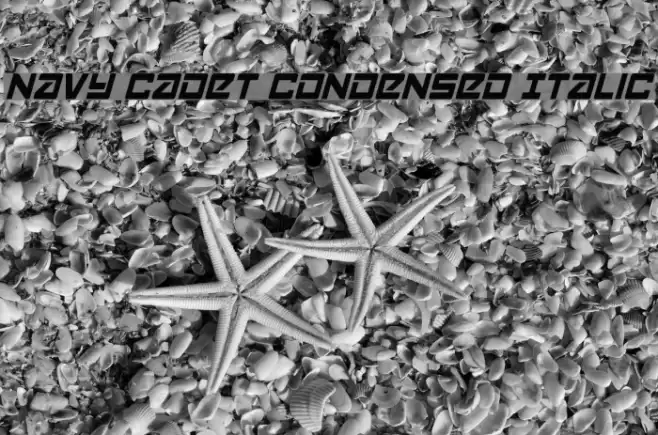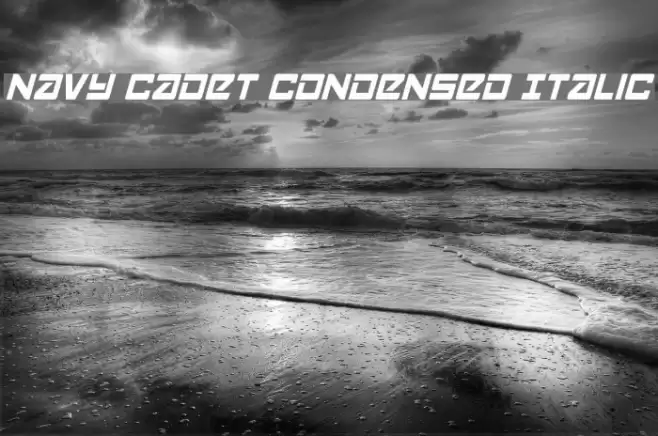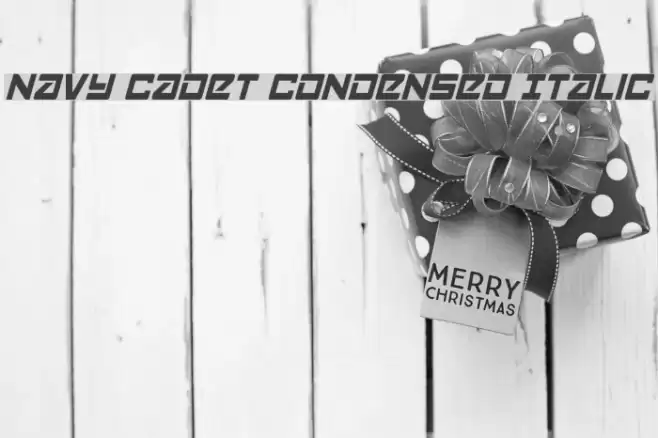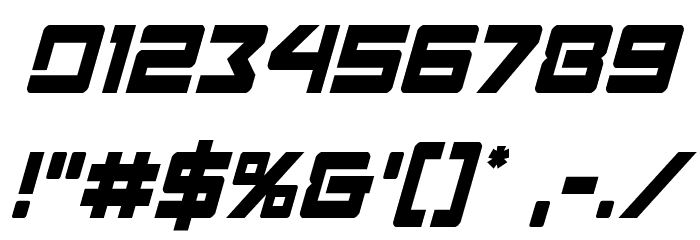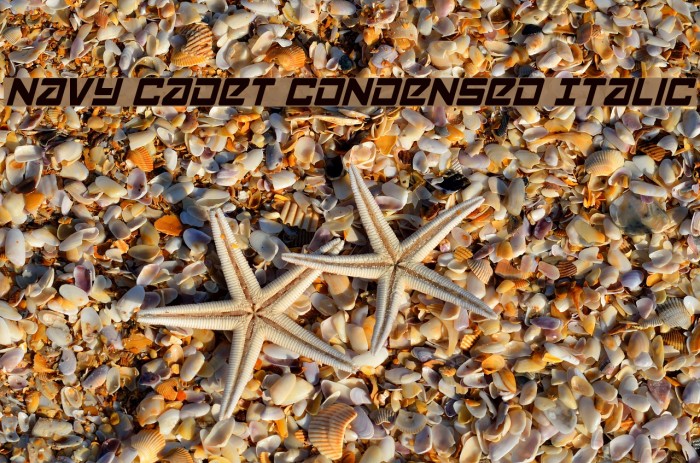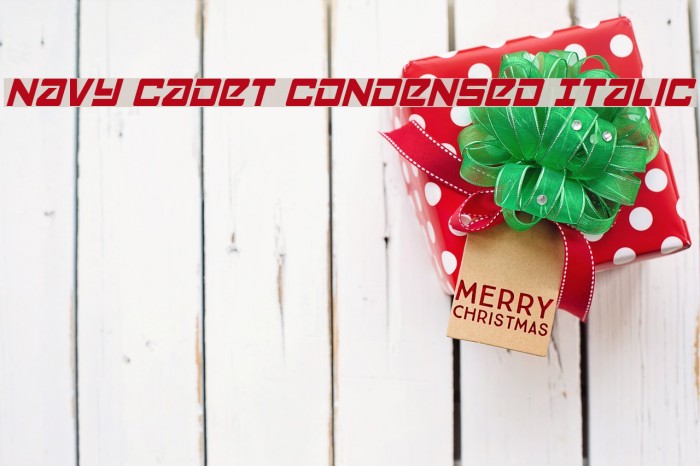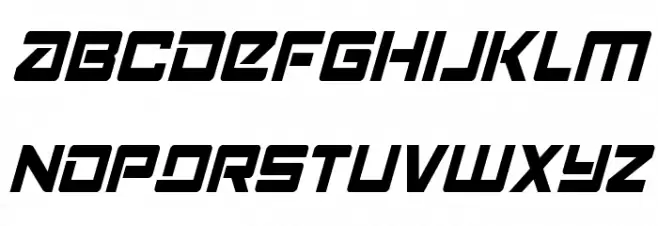
Navy Cadet Condensed Italic
This font features a bold, italicized style with a condensed width, giving it a dynamic and modern appearance. The characters are sharply angled, with a futuristic and aerodynamic feel, making it stand out in any design. The uppercase and lowercase letters maintain a consistent slant, enhancing the italic effect. The numbers and special characters are designed to match the overall aesthetic, ensuring uniformity across all text elements. The boldness of the font ensures high readability, while the condensed nature allows for efficient use of space.
A bold, condensed italic font with a modern, dynamic style.
- Proposed Projects: Ideal for use in sports branding, technology logos, and dynamic poster designs.
- Width: Condensed
- Use Case: Logos, Headlines, Posters